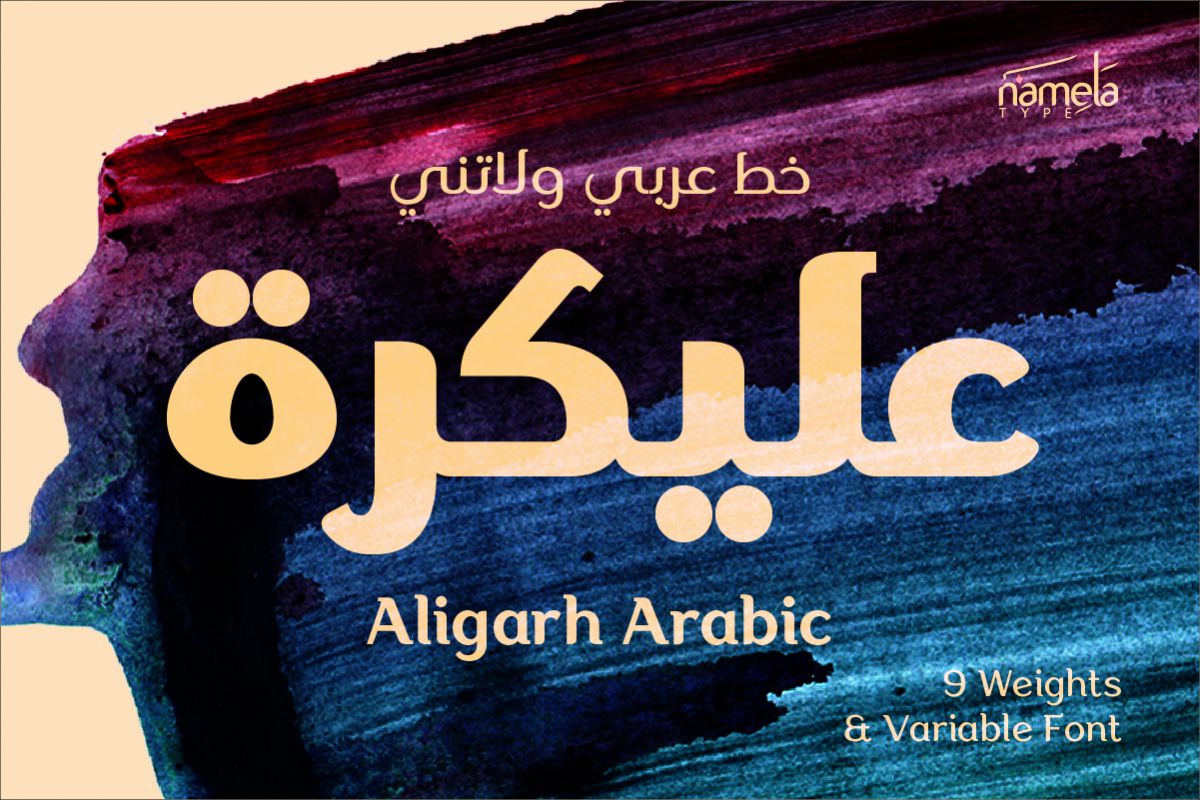
Aligarh Arabic Thin
Aligarh Arabic Font - A Modern Kufic-Inspired Typeface for Editorial & ePub Typography that bridges two cultural worlds is rare, and Aligarh Arabic does it with remarkable elegance. This modern Arabic typeface draws from the ancient Kufic calligraphic tradition while speaking the visual language of contemporary design. Calm, authoritative, and meticulously structured, Aligarh Arabic is built for editorial design, ePub, and any creative work that demands a bilingual typographic experience that